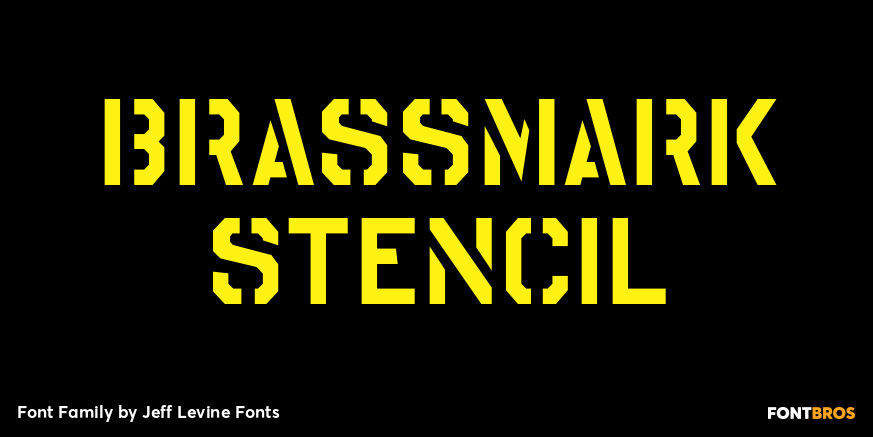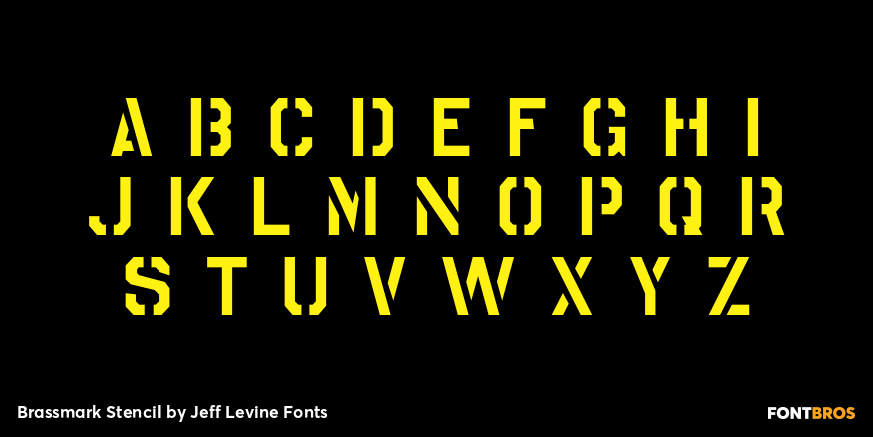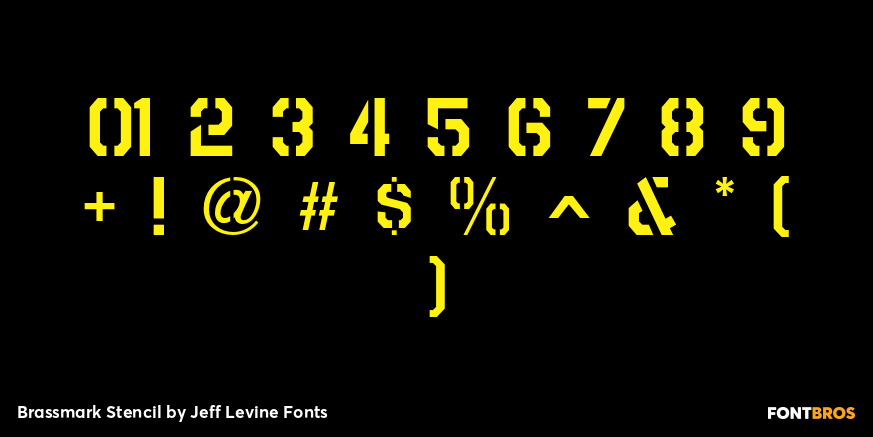
Brassmark Stencil
An antique hand-cut brass stencil of the phrase 'No Hunting on These Premmises” (with the word 'premises' misspelled) was the model for Brassmark Stencil JNL.